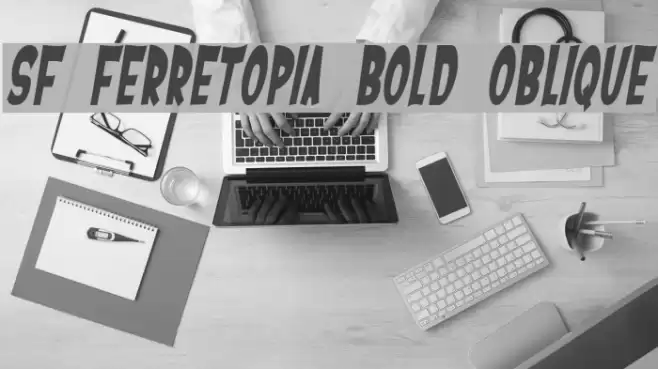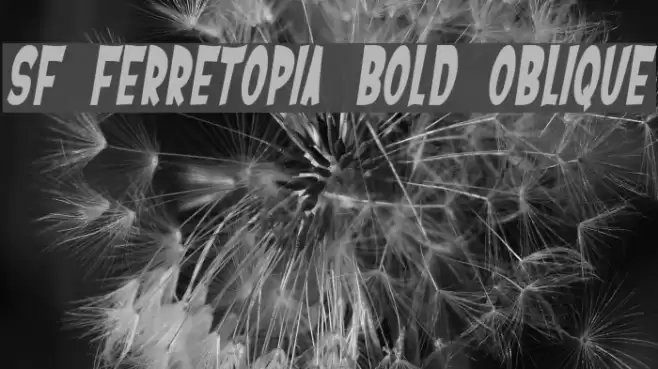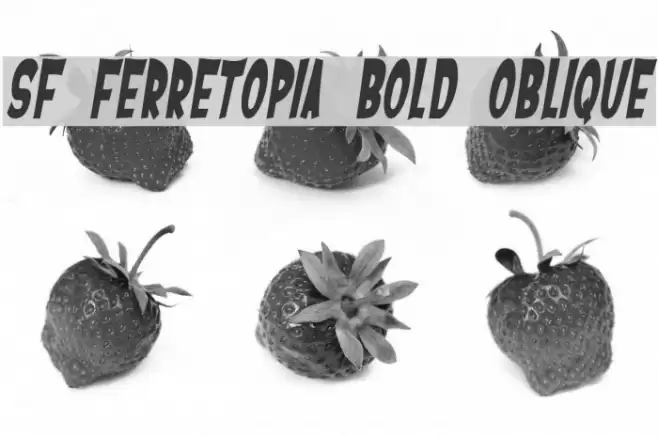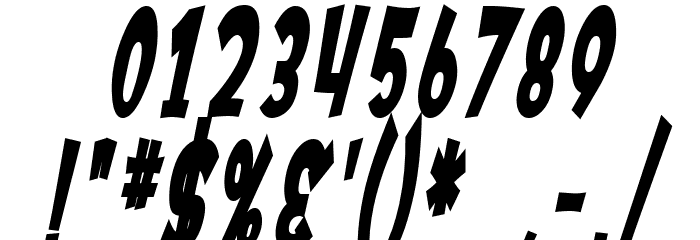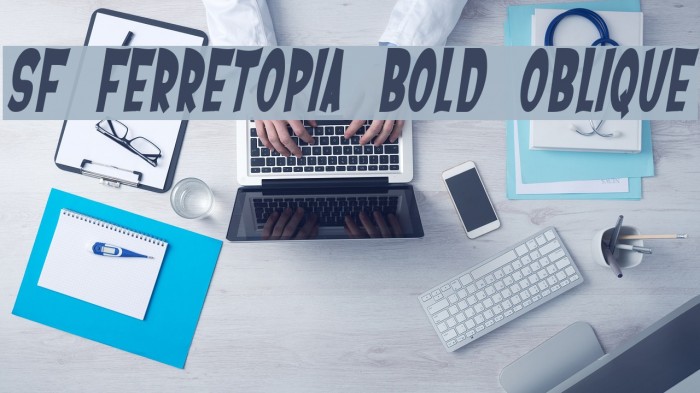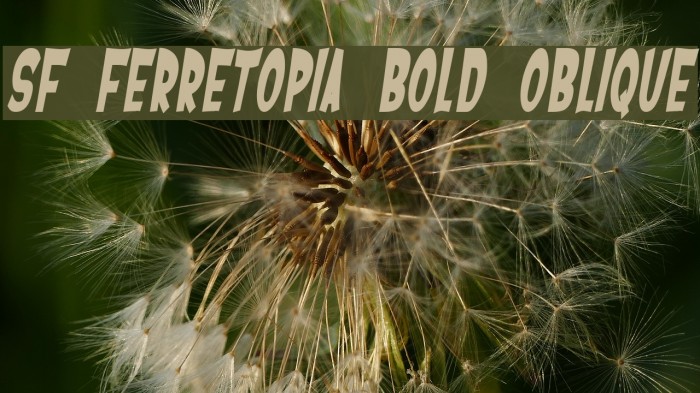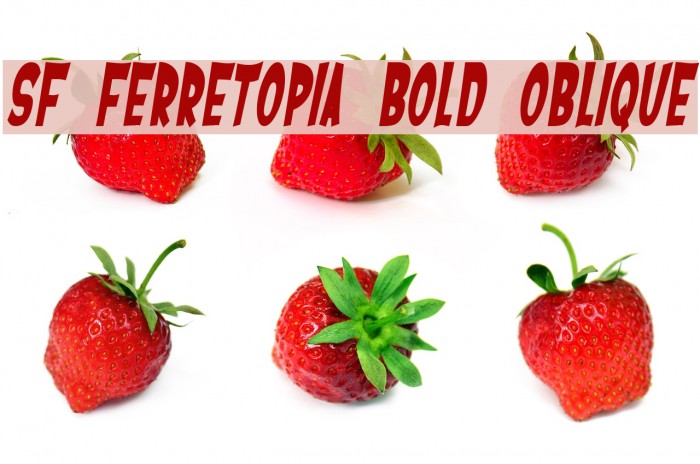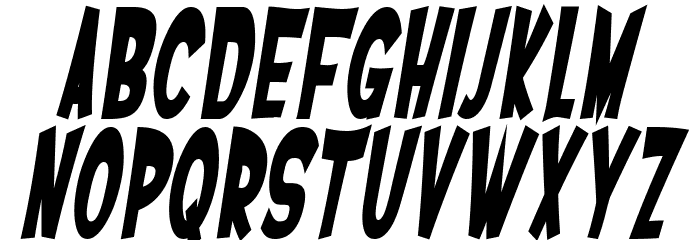
SF Ferretopia Bold Oblique Font
SF Ferretopia Bold Oblique Description
This font features a bold and dynamic style with a strong oblique slant, giving it a sense of motion and energy. The characters are thick and robust, with sharp angles and a slightly condensed appearance. The uppercase and lowercase letters maintain a consistent style, with a playful yet assertive look. Numbers and special characters are equally bold, ensuring readability and impact. The font's design is perfect for making a statement, with its high contrast and distinctive appearance.
A bold, oblique font with a dynamic and energetic style from 3D fonts.
- Proposed Projects: Ideal for posters, headlines, branding, and any project needing a bold statement.
- Character Spacing: Tight